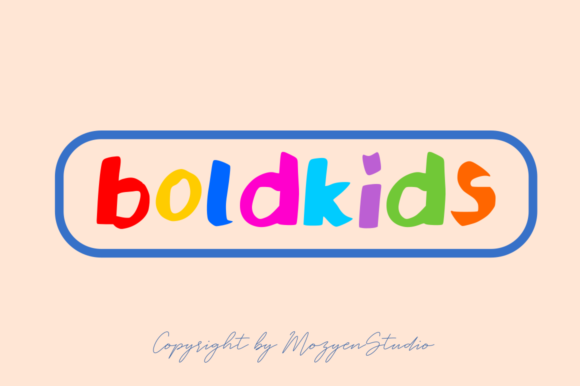
The Boldkids Font: A Whimsical Addition to Your Design Arsenal
I’ll never forget the time I was working on a craft project for my niece’s birthday, determined to create the perfect invitation. I had the design concept nailed, but something was missing – a font that captured the playful, carefree spirit of childhood. That’s when I stumbled upon the Boldkids font, and it instantly became the missing piece to my design puzzle. In this article, I’ll share my experience with this charming font, its features, and how to make the most of it in your designs.
A Personal Review: What I Love About Boldkids Font
The Boldkids font is a whimsical and fun handwritten font that exudes charm. Here are some aspects that I absolutely love:
• ✨ Playful and carefree vibe: The font has a bouncy, energetic feel that’s perfect for craft projects, invitations, and other creative endeavors.
• ✅ Ease of use: The font is easy to read and works well in various design contexts, from digital to print.
• 💕 Emotional connection: The whimsical nature of the font helps create an emotional connection with your audience, making your designs more relatable and engaging.
While the Boldkids font is an excellent addition to any design project, there are a few minor quirks to be aware of:
• 🤔 Limited use in formal contexts: Due to its playful nature, the Boldkids font might not be the best fit for formal or professional designs, such as business reports or corporate branding.
• ⚠️ Legibility at small sizes: As with many script fonts, the Boldkids font may become less legible at very small sizes. It’s best used at larger sizes to maintain its charm and readability.
The Story Behind Boldkids Font
The Boldkids font was designed with the intention of capturing the carefree spirit of childhood. Its creator aimed to craft a font that would bring joy and playfulness to various design projects. While the exact story behind the font’s creation might be unknown, its charm and character have made it a favorite among designers and crafters.
Q: What type of projects is the Boldkids font best suited for? A: The Boldkids font is perfect for craft projects, invitations, children’s designs, and any creative endeavor that requires a playful touch.